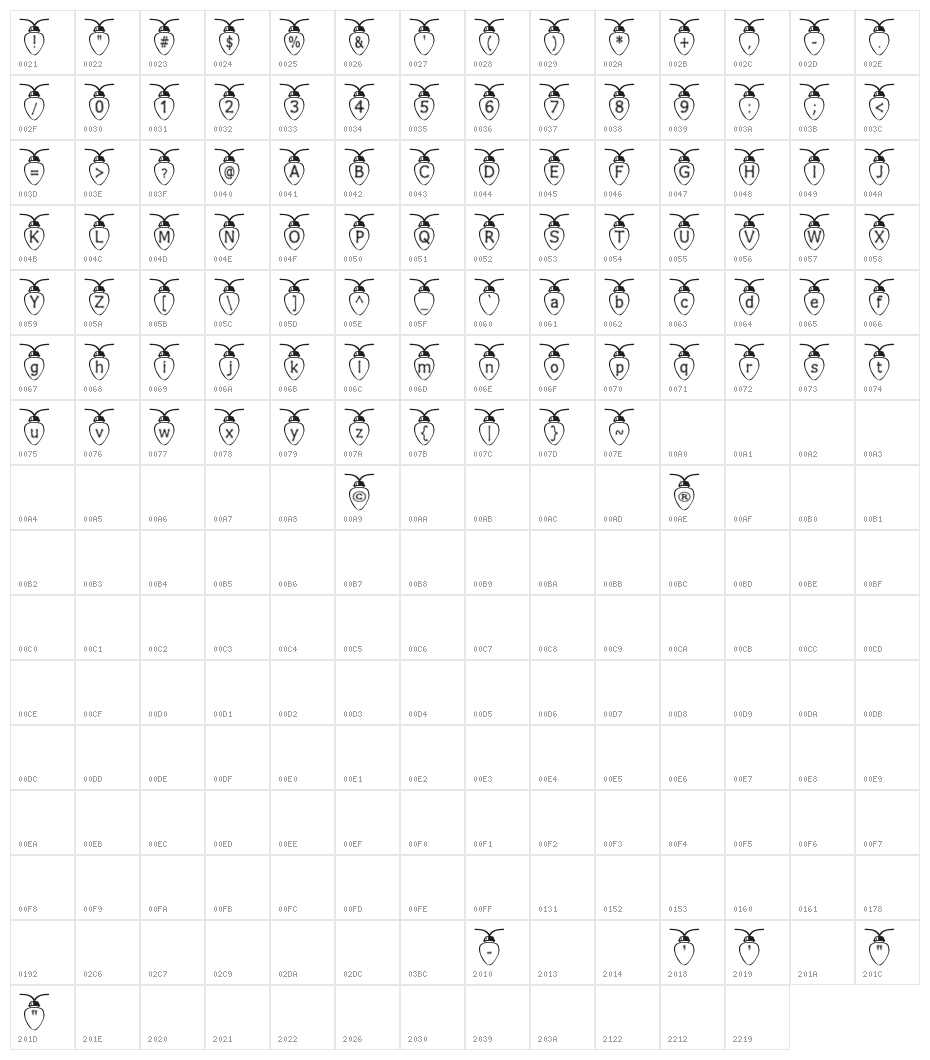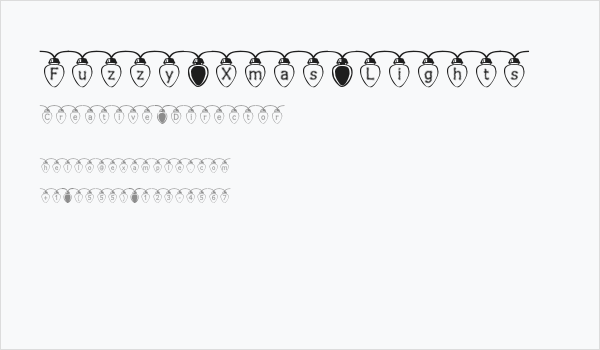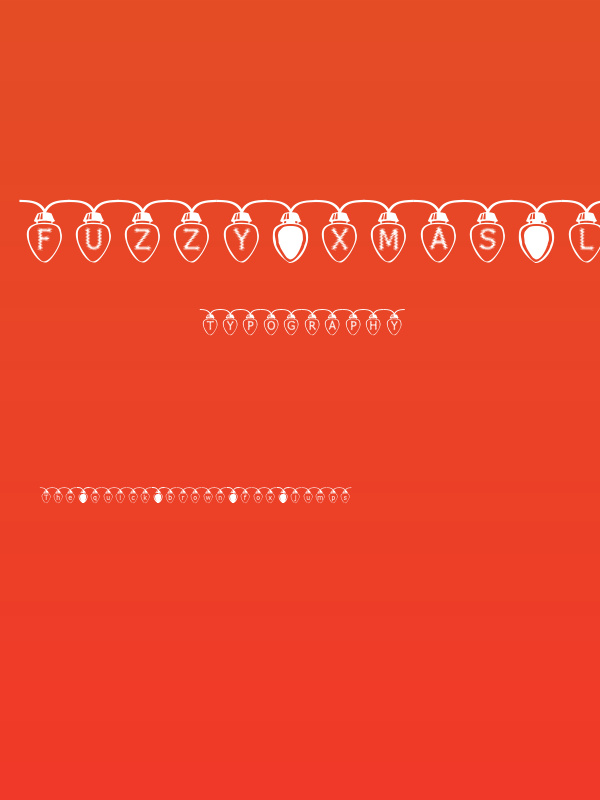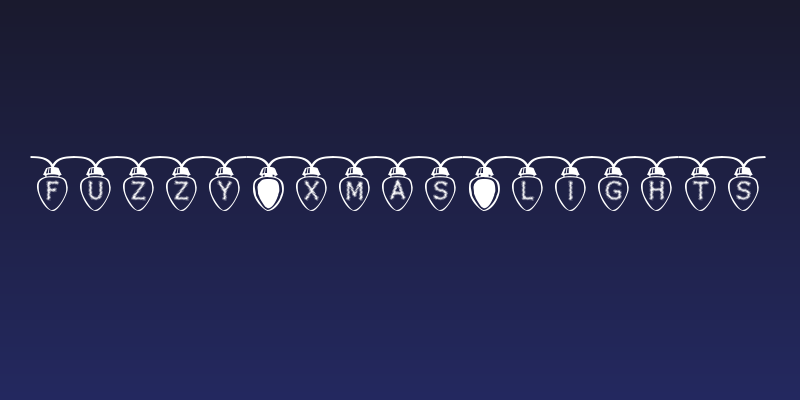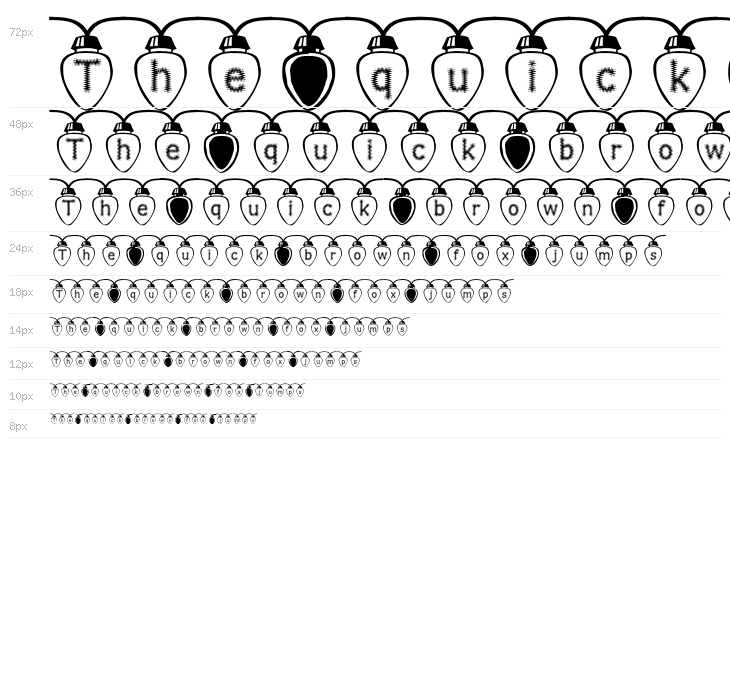
Fuzzy Xmas Lights Font
Fuzzy Xmas Lights Description
This decorative font features characters enclosed within Christmas light bulb shapes, creating a festive and playful appearance. Each letter and number is centered inside a bulb, with a string connecting them, resembling a string of holiday lights. The characters themselves have a slightly fuzzy, textured look, enhancing the whimsical and cheerful theme. This font is ideal for holiday-themed projects, adding a touch of seasonal charm and creativity. The unique design captures the essence of holiday decorations, making it perfect for festive invitations, greeting cards, and seasonal advertisements.
| Proposed Projects | Ideal for holiday cards, festive invitations, seasonal advertisements, and decorative banners. |